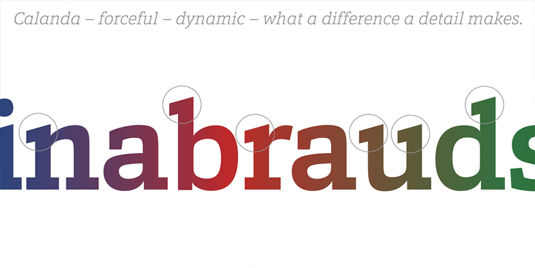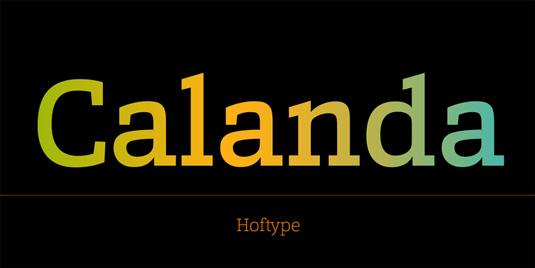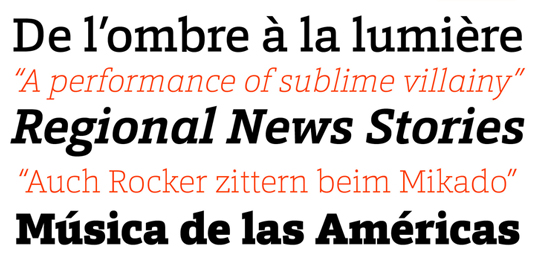
Font of the day: Calanda
Calanda by Dieter Hofrichter
Created by designer Dieter Hofrichter, slab serif Calanda is a forceful, sturdy and dynamic typeface with distinctly shaped characters. Available in 16 styles, all weights contain ligatures, proportional lining figures and scientific numerals and arrows.